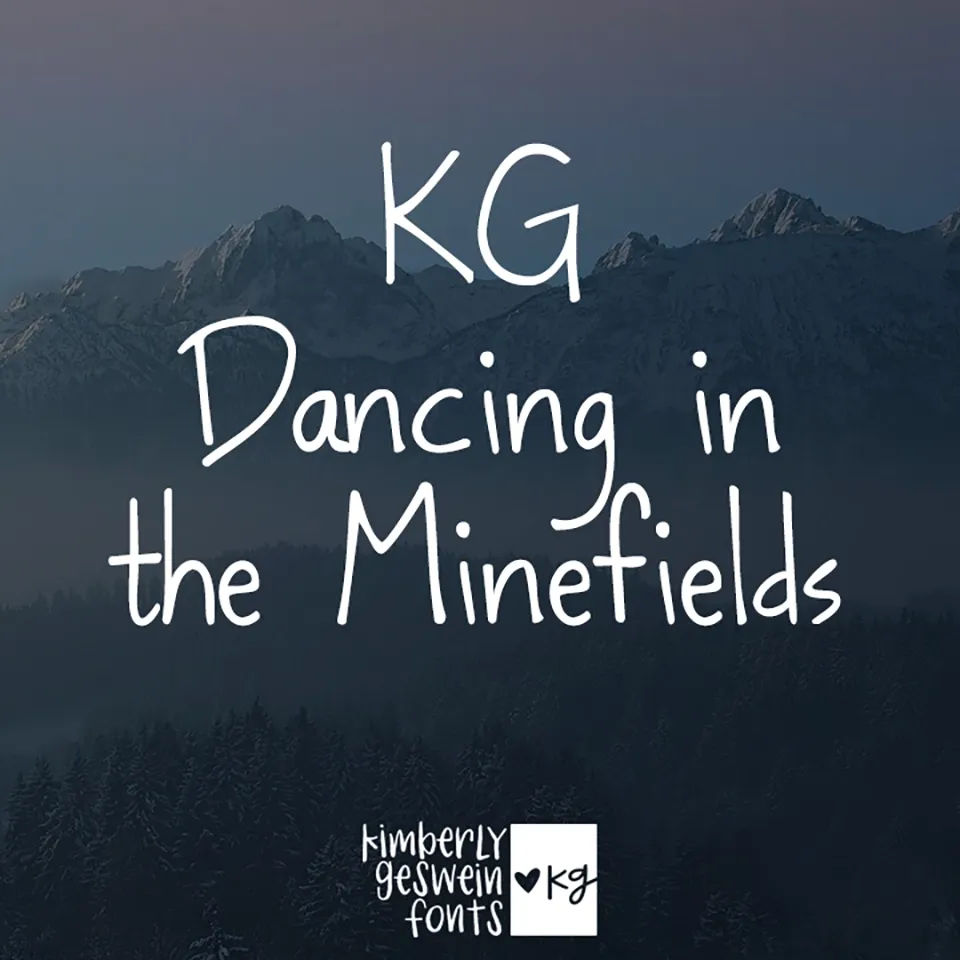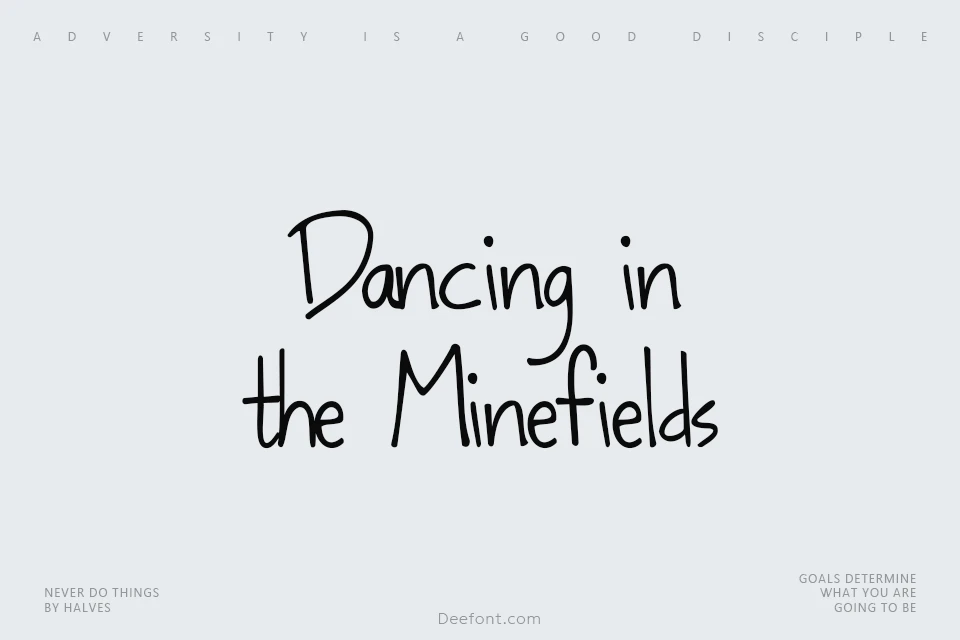
Dancing in the Minefields Font
Dancing in the Minefields Font is a whimsical, handwritten typeface that captures the essence of playful creativity. Its irregular strokes and organic feel evoke a sense of spontaneity, making it perfect for projects that require a personal touch. Ideal for designs like children’s books, social media graphics, and craft projects, this font adds a lighthearted charm to any layout. Its unique style ensures that it stands out on both digital and print media, from invitations to branding materials. Dancing in the Minefields Font is a great choice for designers seeking to infuse their work with a fun, handwritten aesthetic.